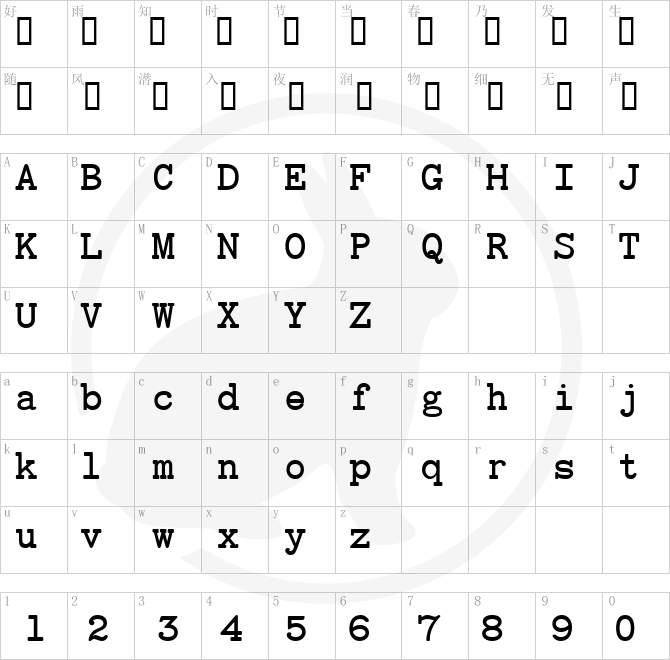
- Font Name:Tajiki Manuscript
Tajiki-Manuscript-Bold.ttf is a very beautiful artistic font, Tajiki-Manuscript-Bold.ttf is widely used in the design and printing of various books and pictures,Tajiki-Manuscript-Bold.ttf has a strong visual impact,Tajiki-Manuscript-Bold.ttf is a commonly used font in newspapers, magazines and books, and is used in posters, e-commerce Poster design, store design, logo design, font design and other fields.Tajiki-Manuscript-Bold.